20+ Vintage Bold Food Font
Vintage bold food fonts bring strong character and nostalgic charm to culinary branding. Discover 20+ food-themed fonts perfect for logos, menus, packaging, and restaurant branding projects.
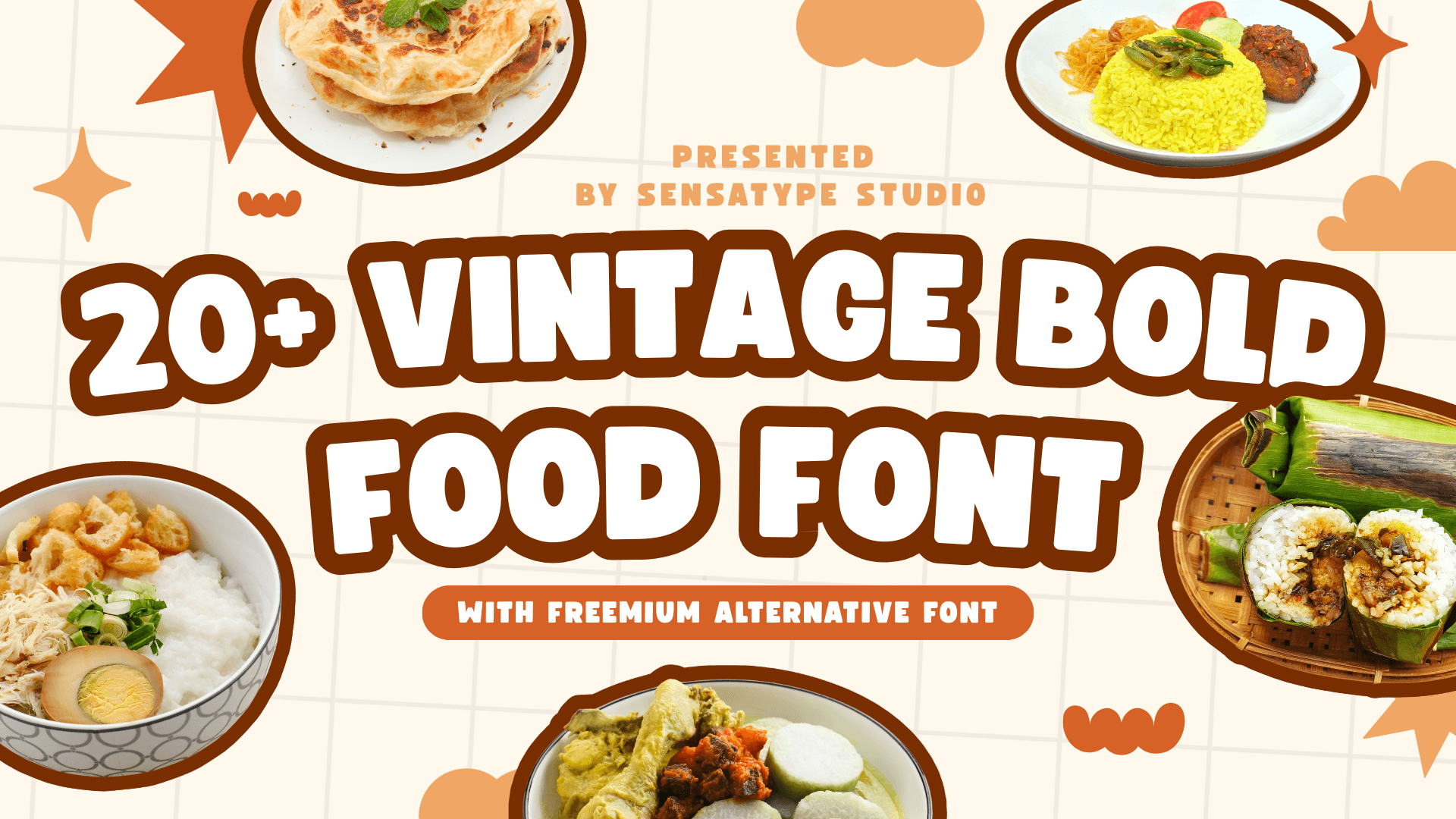
Vintage bold fonts are perfect for food themes because they have a strong look and are a great choice for branding in the culinary world. Vintage typography can remind us of old recipes, home kitchens, and classic shop signs. It can also make us feel like we're seeing real craftsmanship. These fonts are also great for making food logos and labels stand out.
Designers use many elements to showcase their creativity and optimize their work for different purposes. The type of font used in logo and label creation plays a crucial role in the overall presentation of the design. Beyond adding creative flair, fonts also help deliver the right message.
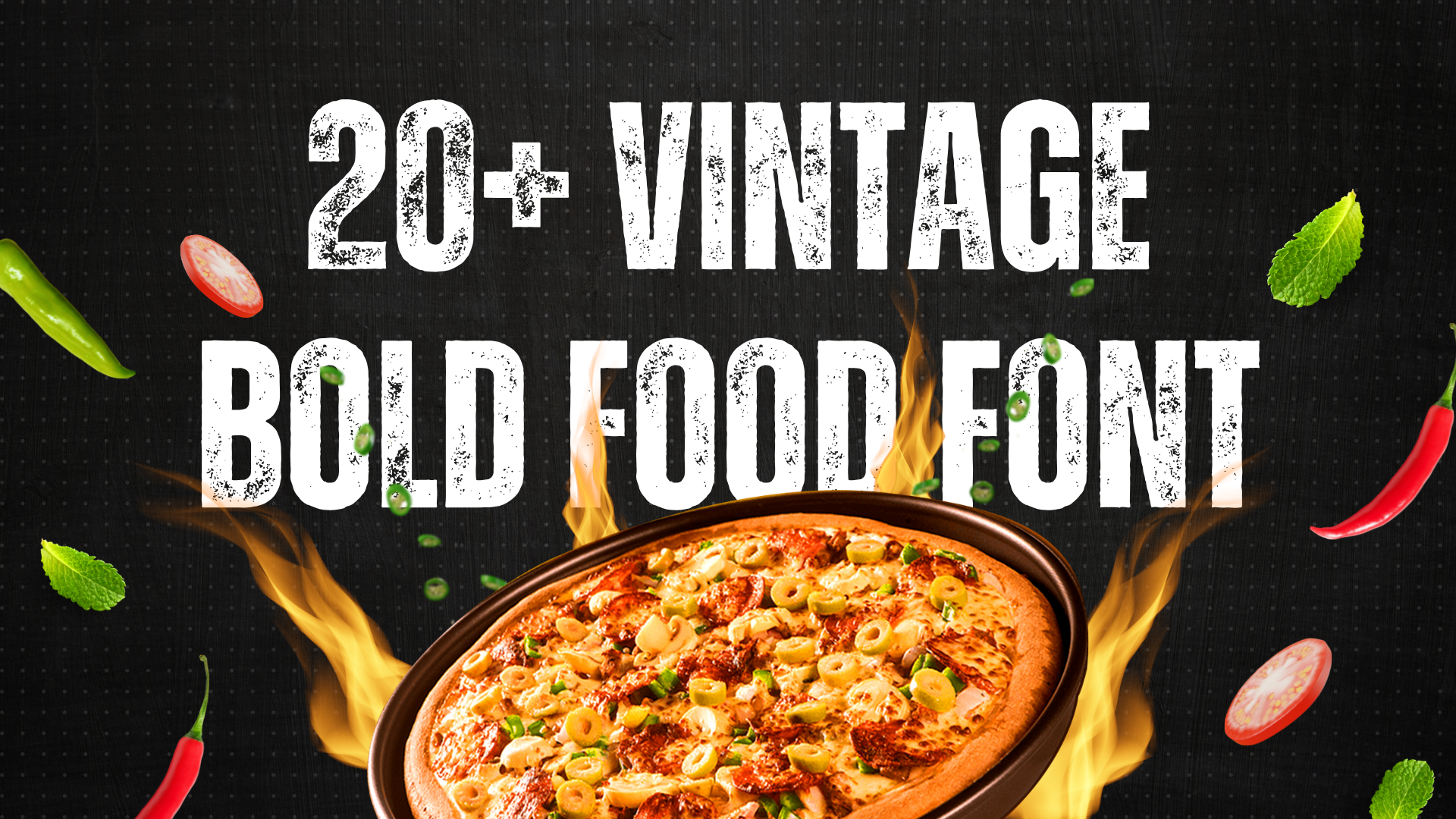
Usually, when we talk about food font ideas, we think about fonts used for menu design, packaging design, website design, business card design, or other marketing materials. However, to build a unique and consistent brand identity, the font style used for your food business should remain the same across all platforms.
Below are impressive and easy-to-read food-themed fonts that can elevate your food logos and labels and be used anywhere in the food industry. These fonts will not only project your creativity, but also help you communicate the right message.
1. Meals - Bold Food Font
Meals is a bold food font designed to make your culinary designs pop. Inspired by the vibrant and dynamic world of food, Meals combines boldness with a playful touch to create a font that's perfect for menus, restaurant branding, and any food-related design projects. Meals deliver the perfect blend of style and flavor.
2. Bear Rounded - Rounded Bold Food Font
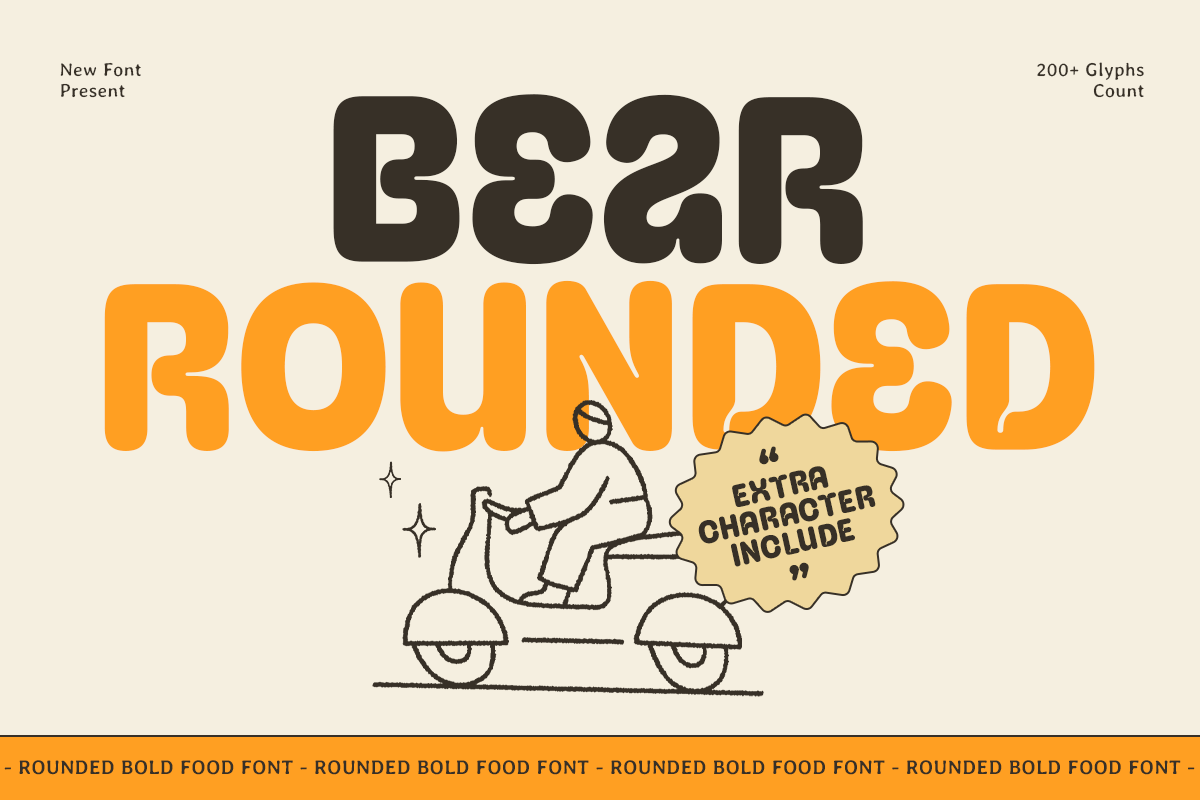
Bear Rounded is a rounded bold food font designed to bring warmth, friendliness, and delicious visual appeal to your creative projects. With its thick curves and ultra-smooth edges, this typeface is perfect for food branding, snack packaging, restaurant identity, and fun promotional visuals. Crafted with a playful spirit, Bear Rounded delivers a soft and approachable character that stands out in both digital and print formats.
3. Himiko - Bold Food Vintage Font
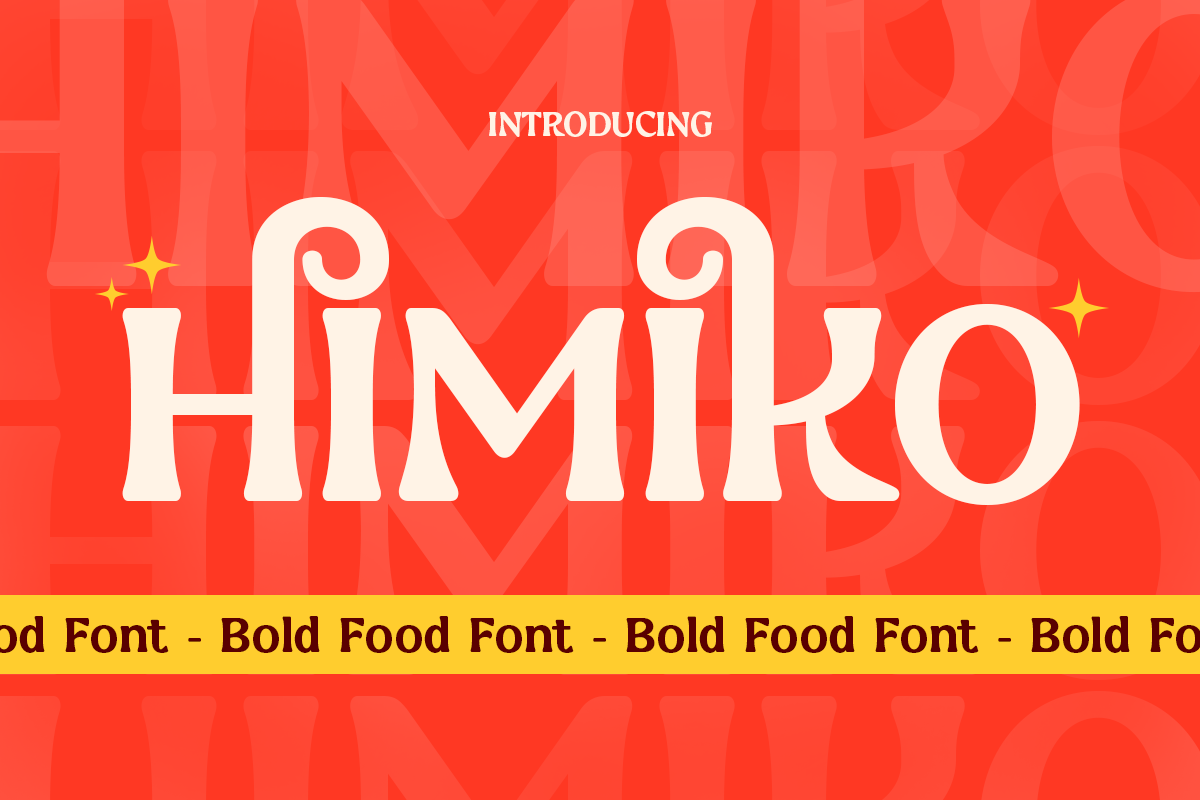
With its strong, eye-catching letterforms, Himiko brings a sense of flavor and creativity to your food-related projects. Perfect for restaurant logos, menus, packaging, and food promotions, this font exudes appetite and appeal.
4. Bravco - Unique Bold Logo Food Font
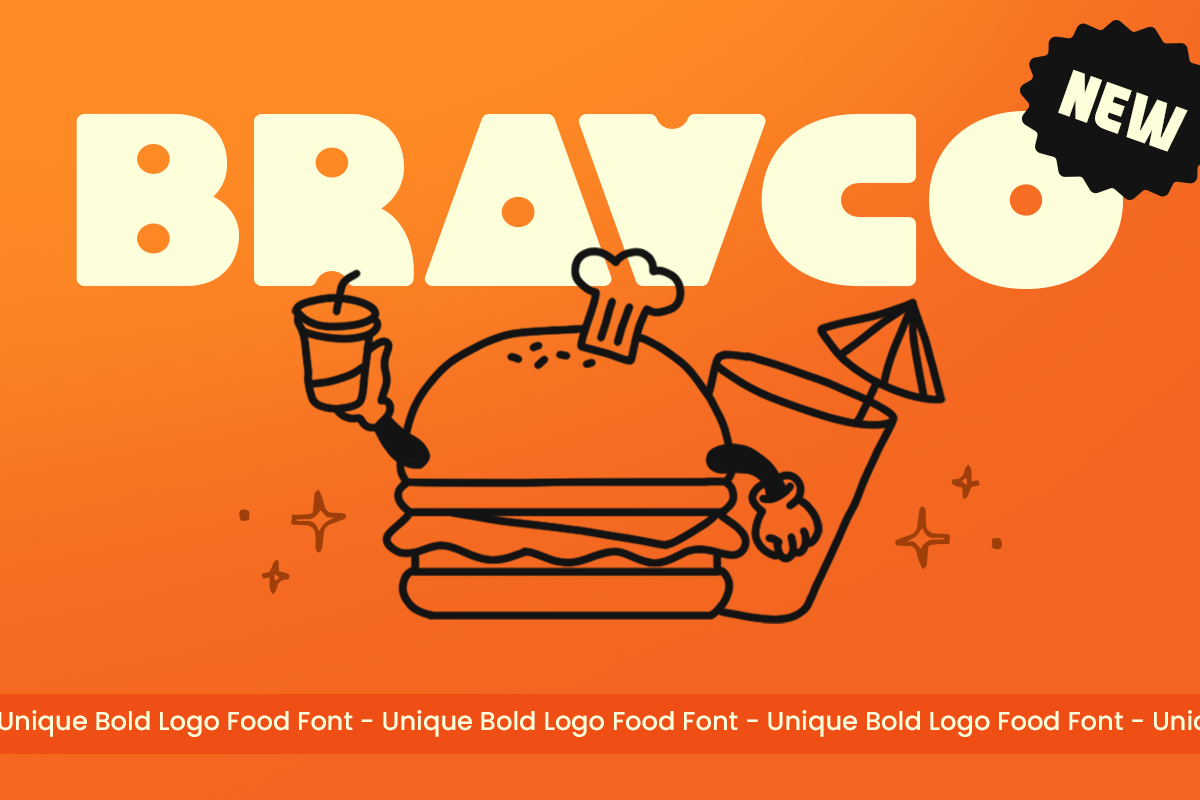
With its robust letterforms and confident presence, this typeface evokes the bold flavors and lively atmosphere of contemporary cafes, eateries, and food brands. Its versatile design balances impact with readability, making every word feel fresh and flavorful. Designed especially for branding and food packaging, Bravco excels in logo design, cafe signage, menus, posters, and social media graphics.
5. Brack - Bold Food Vintage Font
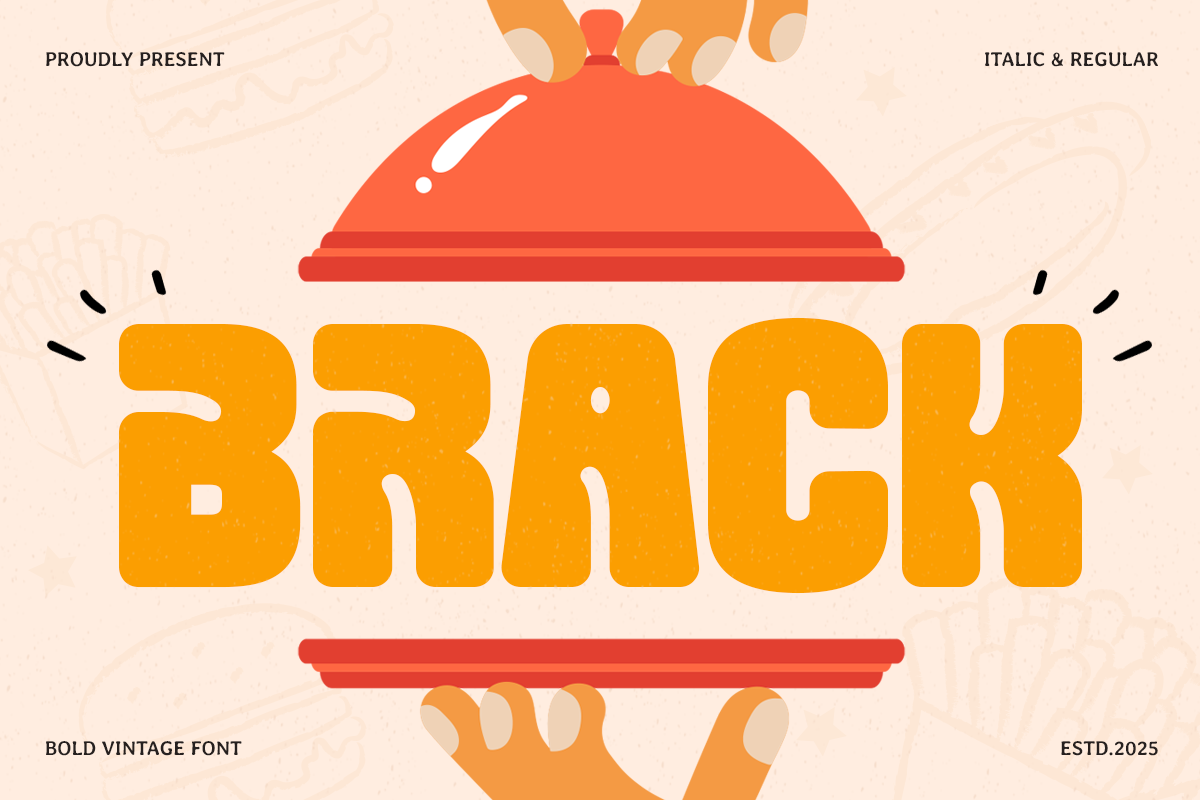
Brack is a bold and flavorful vintage font inspired by classic food signage, retro menus, and nostalgic branding. Its strong letterforms and rustic charm make it the perfect choice for restaurants, cafés, bakeries, diners, food packaging, and menu designs.
6. Renbo - Bold Food Branding Font
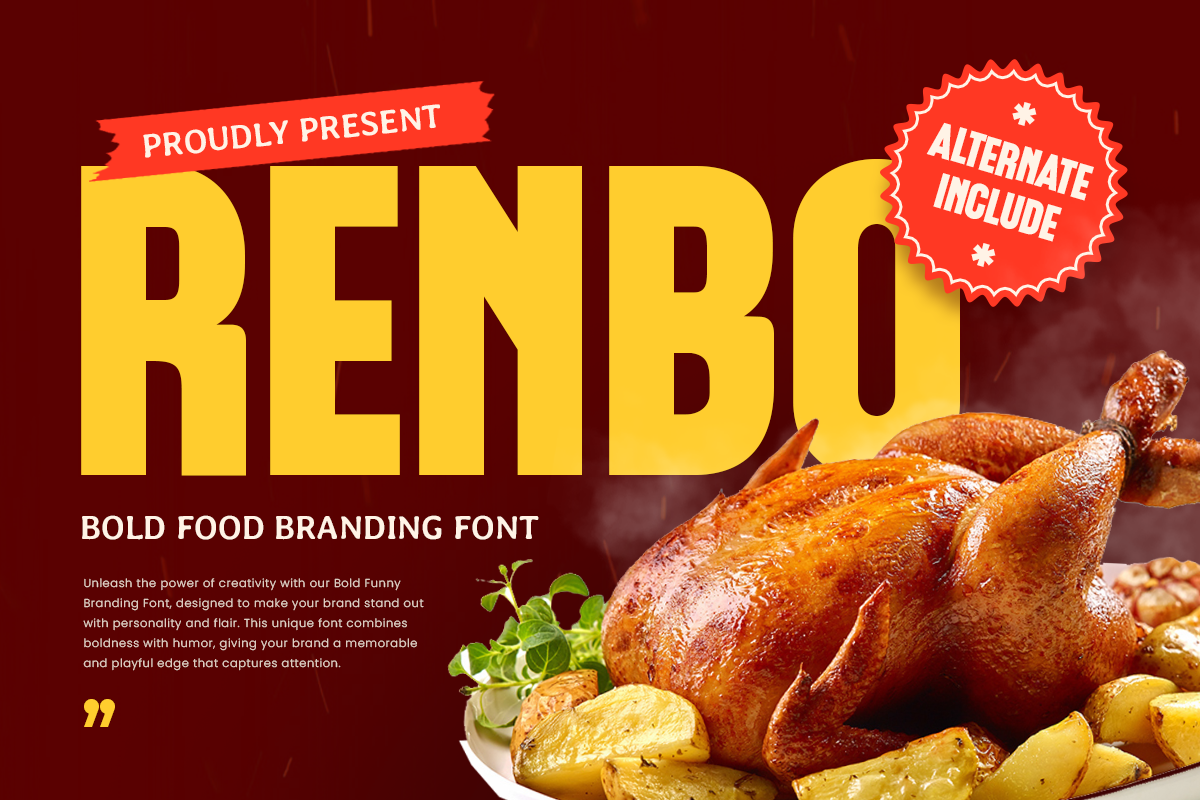
Renbo is a bold food branding font designed to bring fun and appetite appeal to your creative projects. Its chunky forms and rounded corners deliver a friendly, modern aesthetic that’s ideal for food-related designs, from fast food chains and snack packaging to colorful menu layouts and restaurant logos.
7. Artyka - Heavy Bold Food Font
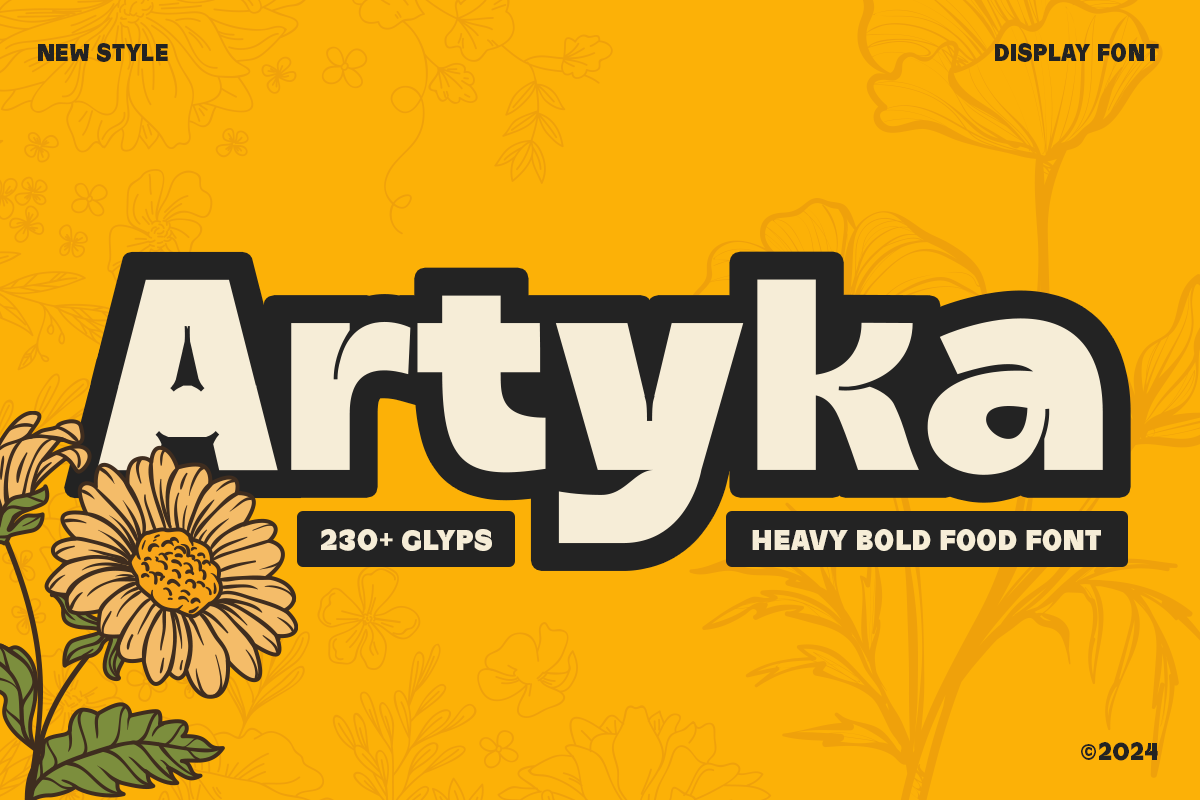
Artyka was inspired by the vibrant and diverse world of culinary arts. Imagine the bustling kitchens, the colorful dishes, and the lively atmosphere of your favorite restaurant. Artyka is ideal for designers looking to create modern and stylish branding materials that appeal to food lovers and connoisseurs alike.
8. Baked - Heavy Food Font
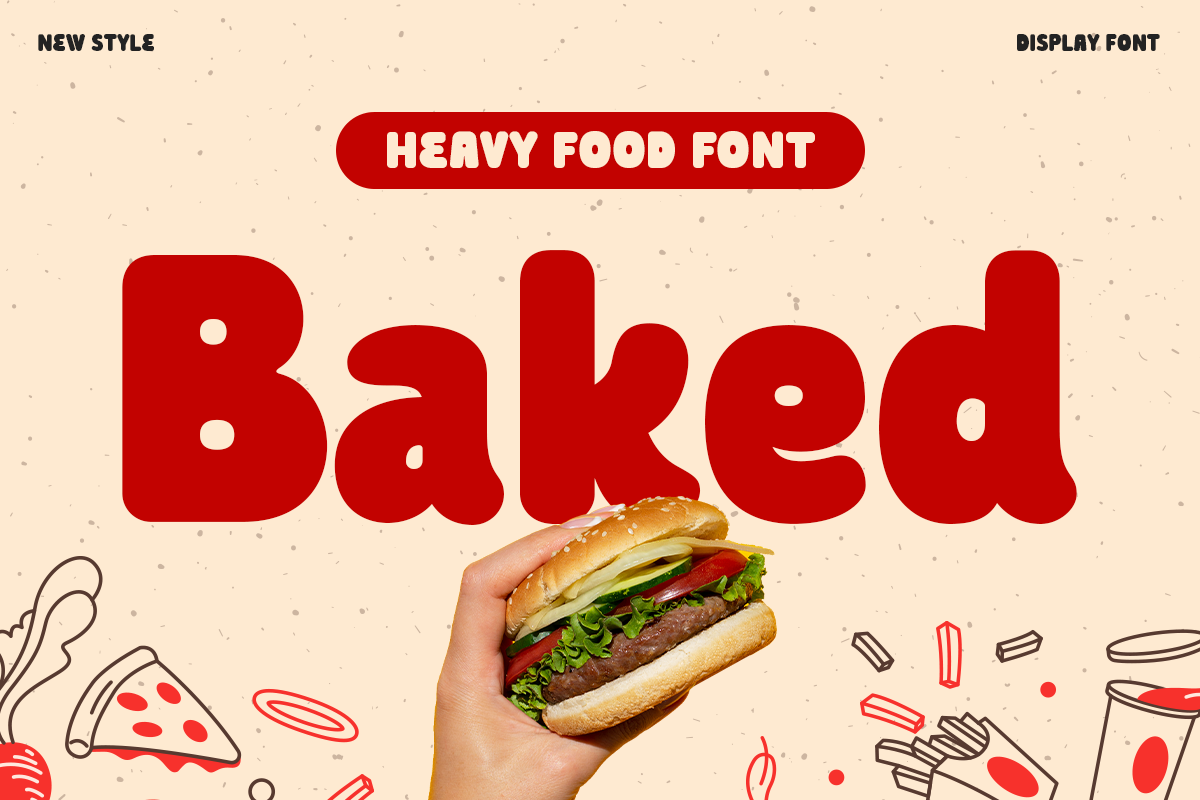
Baked is a heavy food font crafted to make your culinary headlines and designs stand out. Baked combines weight and character to create a font that's perfect for bold headlines, delicious menus, and eye-catching food-related designs.
9. Cingle - Vintage Food Font
Cingle is a beautifully crafted vintage food font designed to bring warmth and nostalgia to your culinary projects. Inspired by classic signage, retro food packaging, and old-school restaurant branding, Cingle delivers a timeless charm that enhances any design. Perfect for Menus, Packaging, and Branding Whether you're designing a restaurant menu, café signage, or a vintage-style food label.
10. Chubaq - Rounded Food Font
Crafted to feel warm and approachable, Chubaq delivers a bold yet soft aesthetic that works beautifully for menus, posters, kids’ items, product labels, and cheerful social media content. Its rounded construction makes every letter look tasty, inviting, and visually delightful, perfect for designs that need personality and flavor.
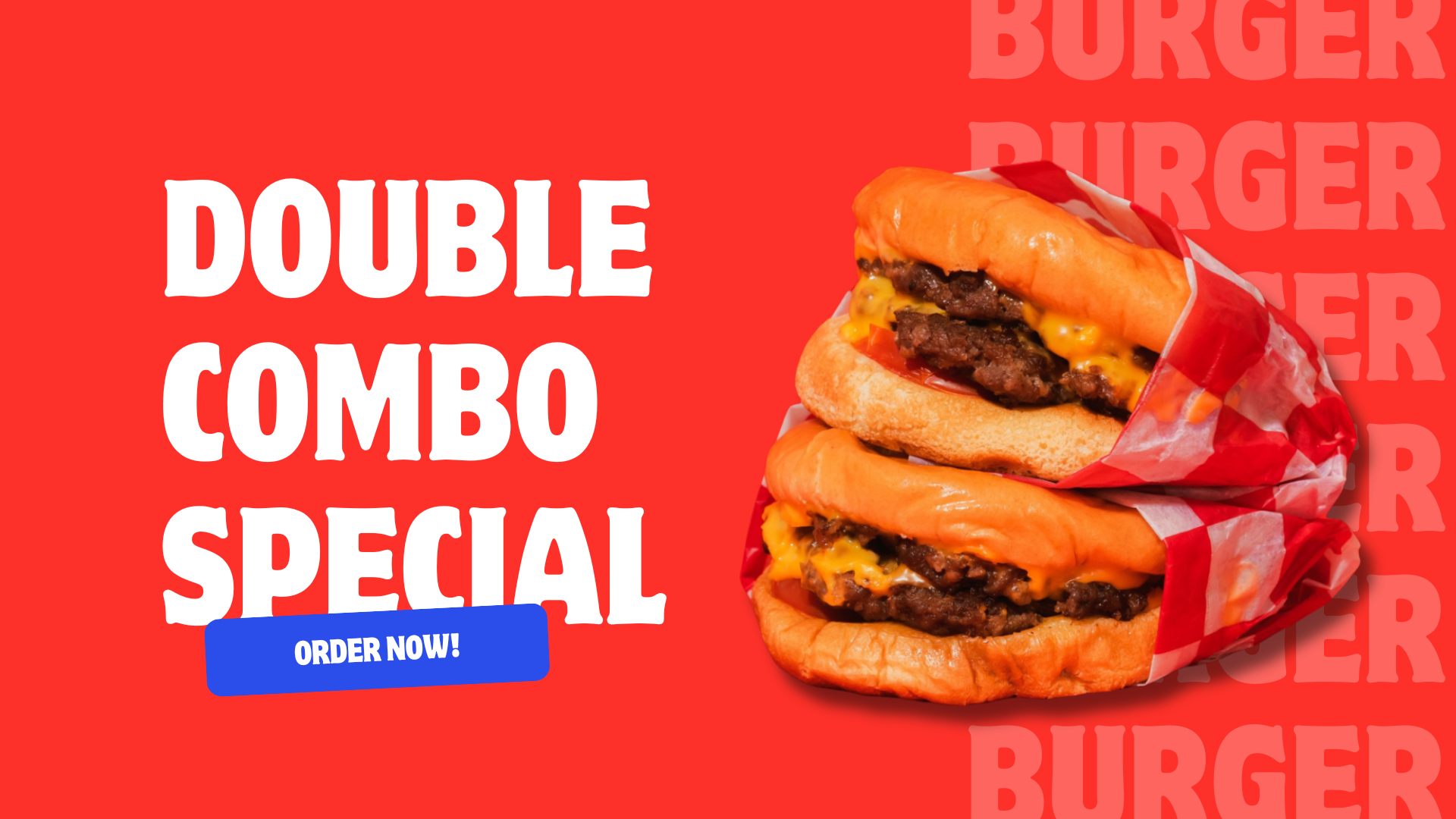
Fonts are an essential part of any design. They complement color, imagery, and other design elements to communicate the intended message at first glance. Food fonts play a similar role to other typefaces. They work well for a wide range of food labels, logos, and packaging. The list above features food fonts that are suitable for many types of food-related designs. These fonts enhance your creativity while delivering a clear message.